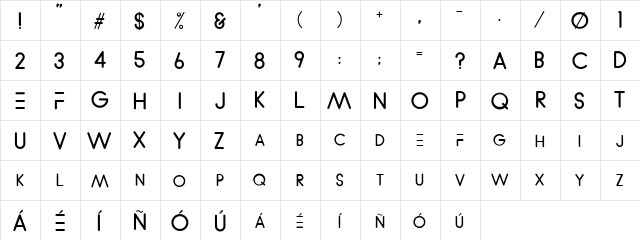
WVelez Logofont Regular
Design Context for WVelez Logofont Typeface
WVelez Logofont takes a measured approach to typography — its balanced proportions and neutral character make it a reliable workhorse for both digital and print work.